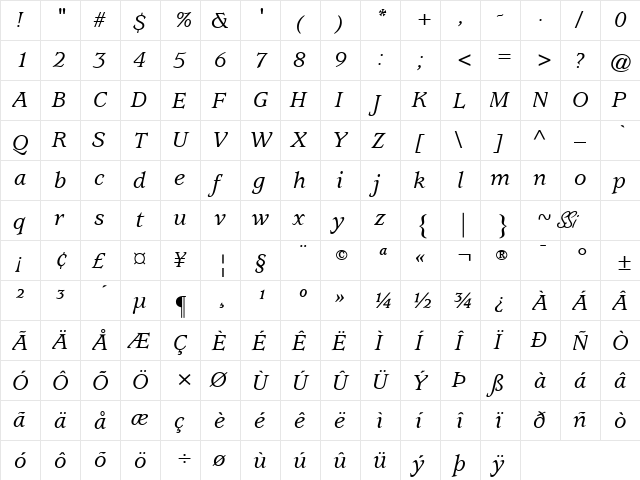
Exposition Medium SSi Medium Italic
Design Context for Exposition Medium SSi Typeface
Exposition Medium SSi is a composed and adaptable typeface that performs quietly and consistently across a wide range of design contexts. Its italic angle brings a sense of urgency and motion to the letterforms.
Pro Tip: Try Exposition Medium SSi for annotation and caption copy alongside an upright companion — the contrast in angle creates a dynamic but ordered typographic system.